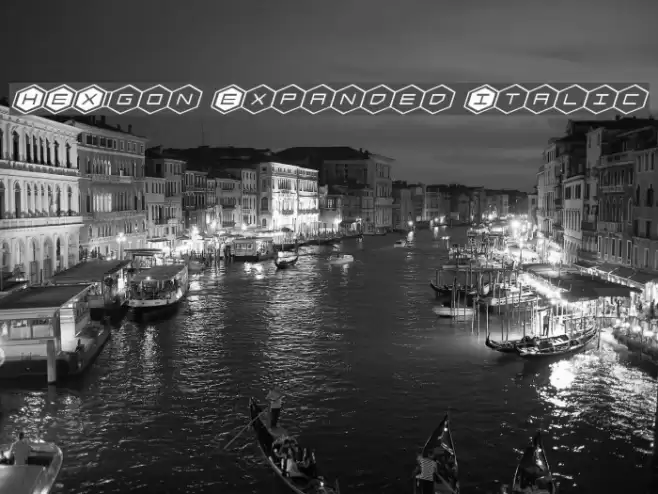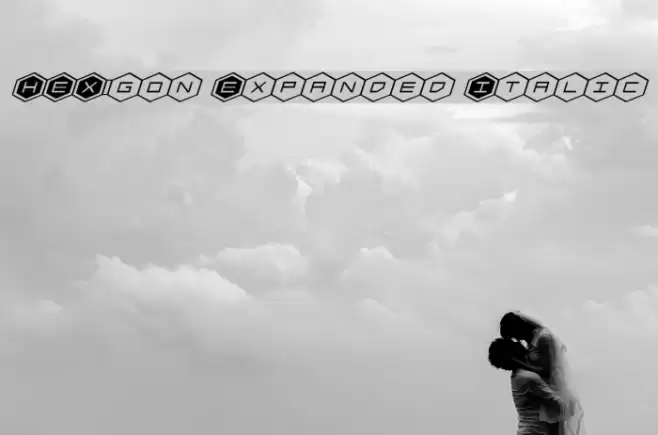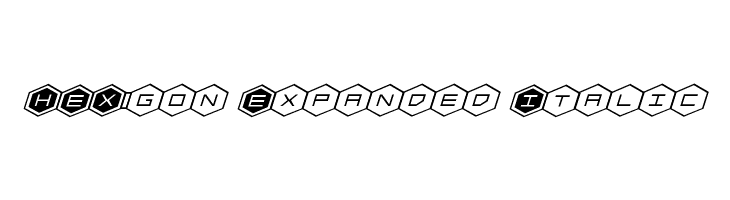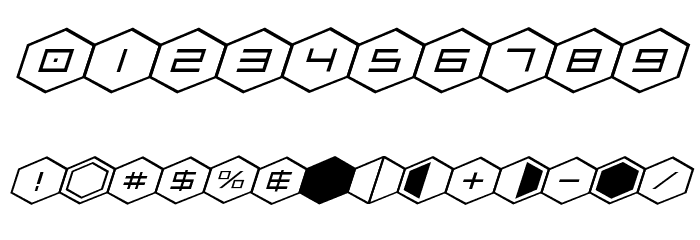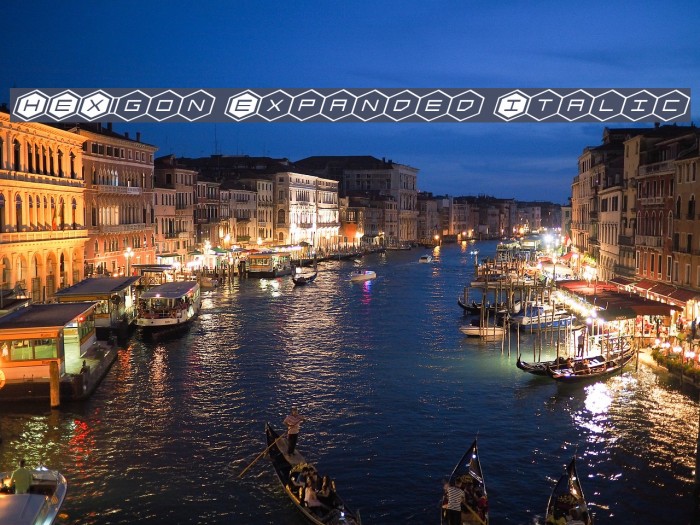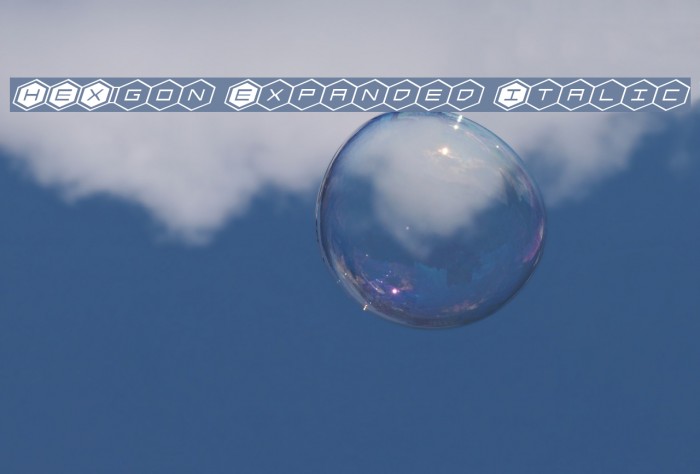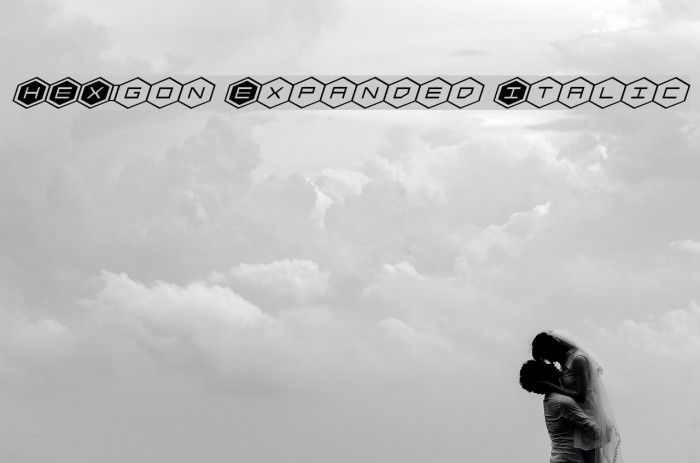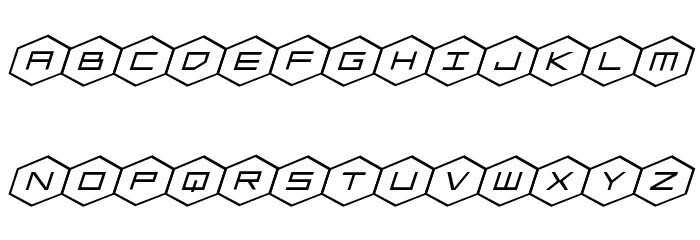
HEX:gon Expanded Italic Font
HEX:gon Expanded Italic Description
This font features a unique hexagonal design, with each character enclosed within a hexagon. The style is bold and italicized, giving it a dynamic and futuristic appearance. The characters are evenly spaced within their hexagonal frames, providing a consistent and structured look. The uppercase and lowercase letters, as well as numbers and special characters, all maintain this geometric theme. The font's expanded width and italic slant add to its distinctiveness, making it stand out in any design. The contrast between the thick outlines and the inner strokes of the characters is medium, ensuring readability while maintaining its decorative appeal.
A bold, italicized font with characters enclosed in hexagons, offering a futuristic and structured appearance from Uncategorized fonts.
- Proposed Projects: Ideal for sci-fi themed projects, tech-related branding, video game titles, and modern poster designs.
- Width: Expanded
- Overall Style: Futuristic